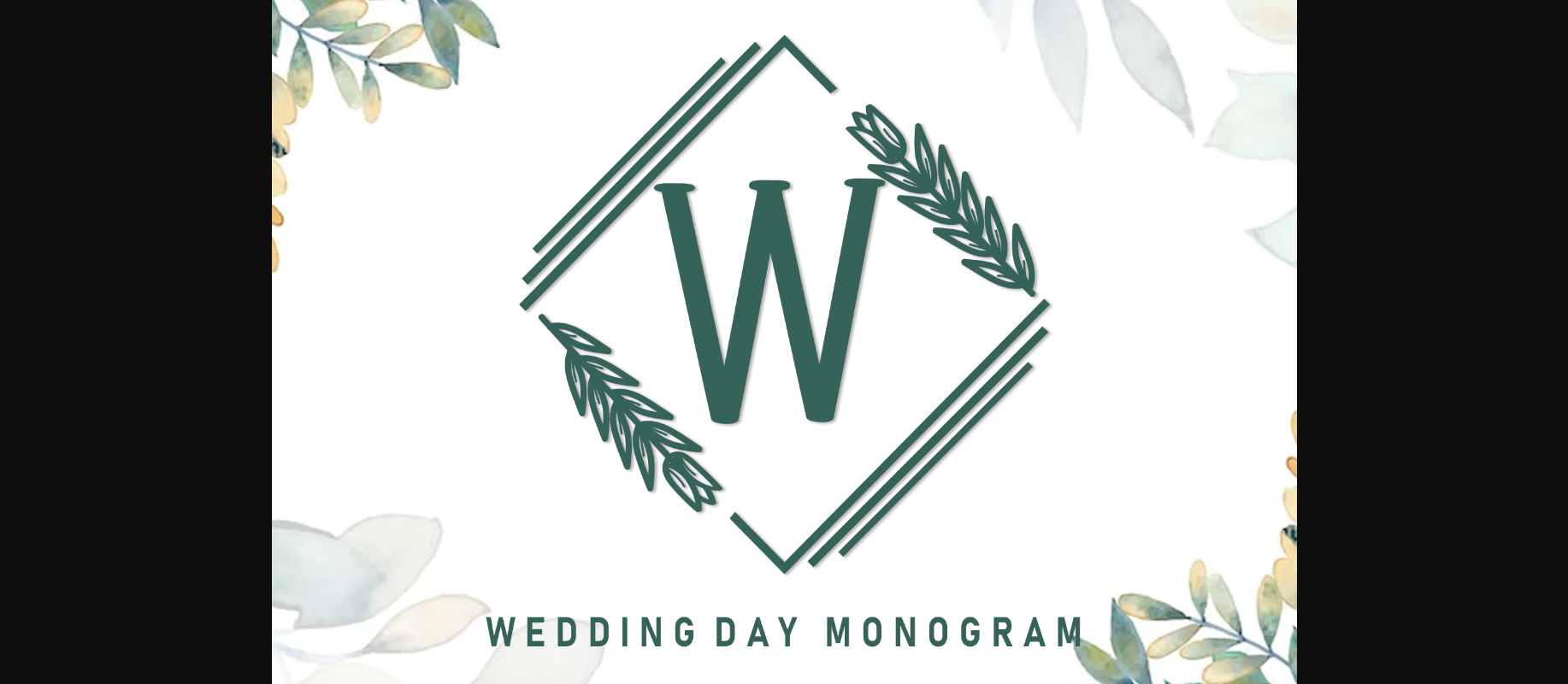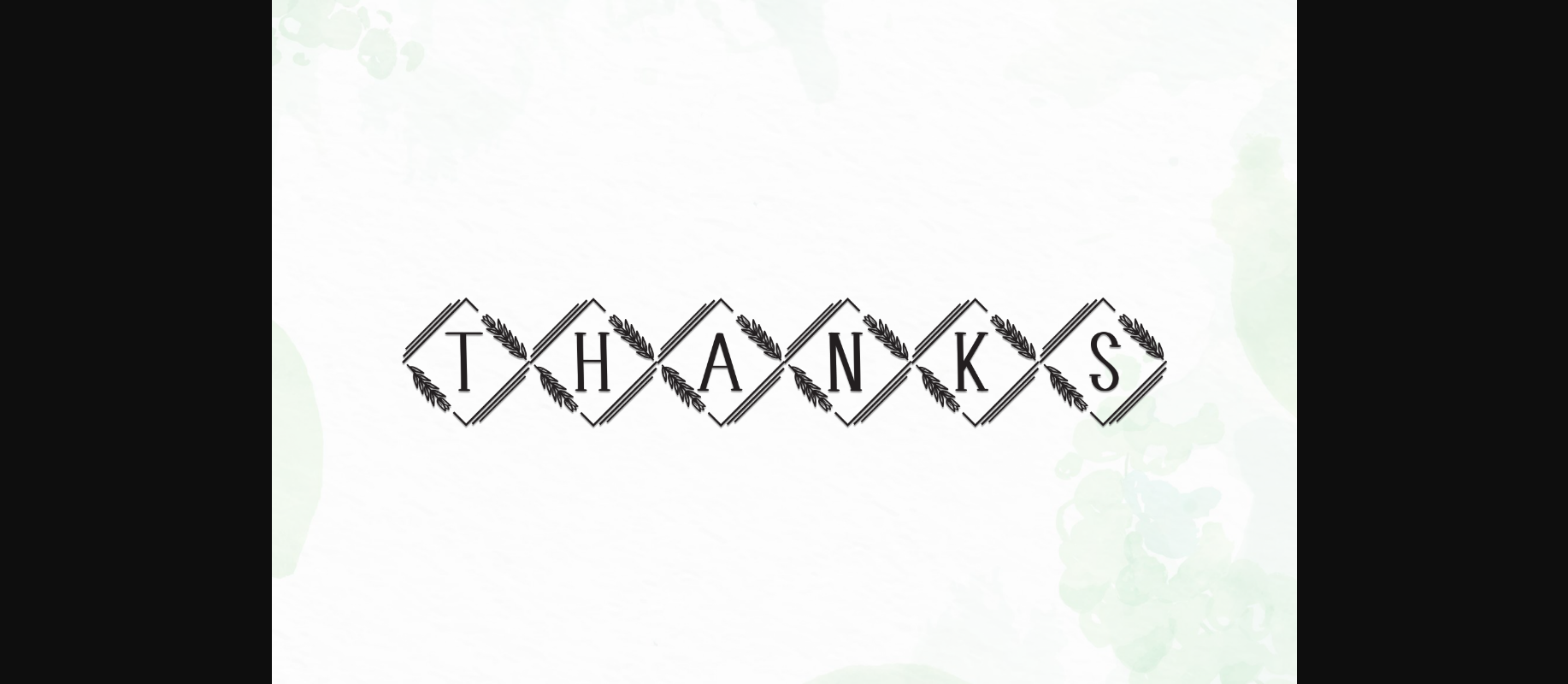
About Wedding Day Monogram Font
This elegant font combines the timeless beauty of monograms with delicate floral accents, creating a stunning design perfect for adding a personal touch to any project. The letters are simple while the graceful flower border adds a touch of nature’s beauty. Whether you’re creating invitations, personalized stationery, or decorative pieces, this font will effortlessly enhance your designs with its timeless charm and sophistication.